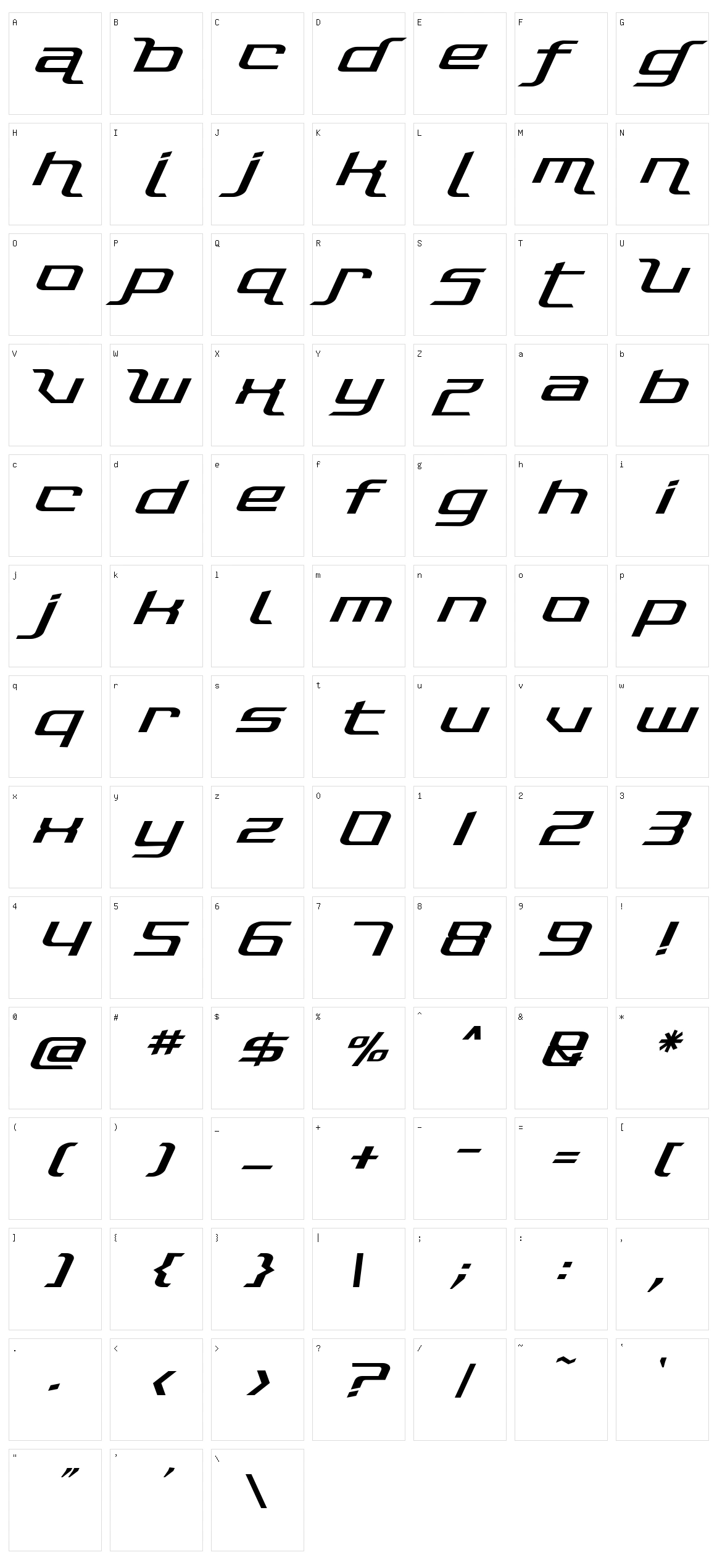
Photonica
Designed by: Sean Liew Kheng Huat
Photonica Regular + Straight
Thank you for downloading this set of fonts. Based on Malaysia's national car logotype, it started out by taking pictures of other people's car and then tracing the word "proton". Then the other alphabets are created based on those initial characters. It took me quite a bit to finish both versions, particularly when adjusting substantially large number of kerning pairs.